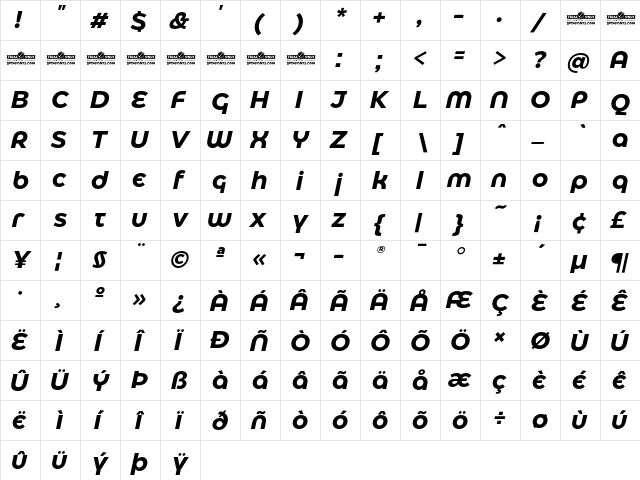
Eastman Alternate Trial Bold Italic
| Foundry | Zetafonts |
| Designer | Francesco Canovaro |
Design Context for Eastman Alternate Trial Typeface
Eastman Alternate Trial takes a measured approach to typography — its balanced proportions and neutral character make it a reliable workhorse for both digital and print work. The slanted form adds forward momentum and visual energy. Its bold stroke weight gives it real presence on the page.